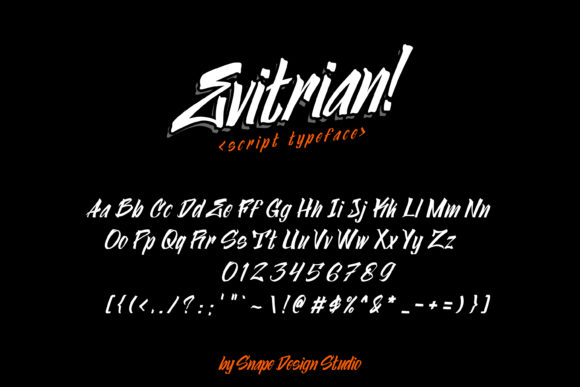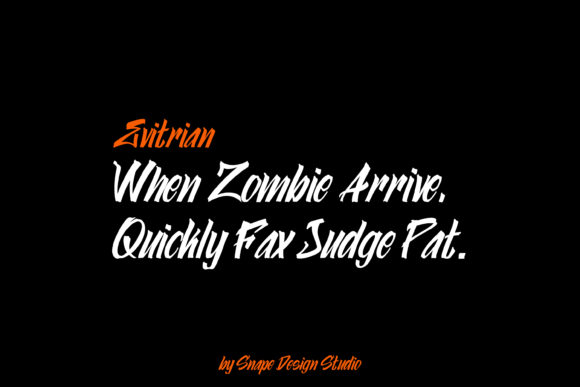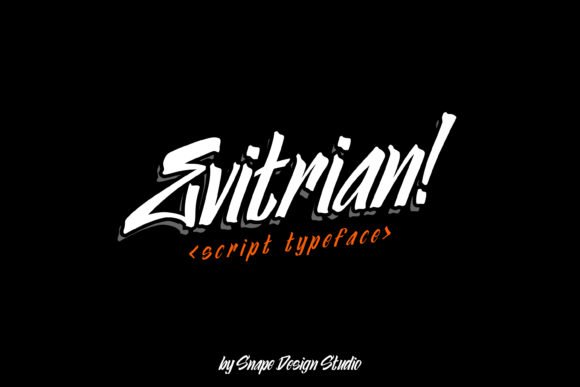
Introduction to Evitrian Font
Evitrian is a strong, urban styled display font.
Incredibly modern and unique, this font will make each of your designs stand out .
Key Features of Evitrian Font
Why Choose Evitrian Font?